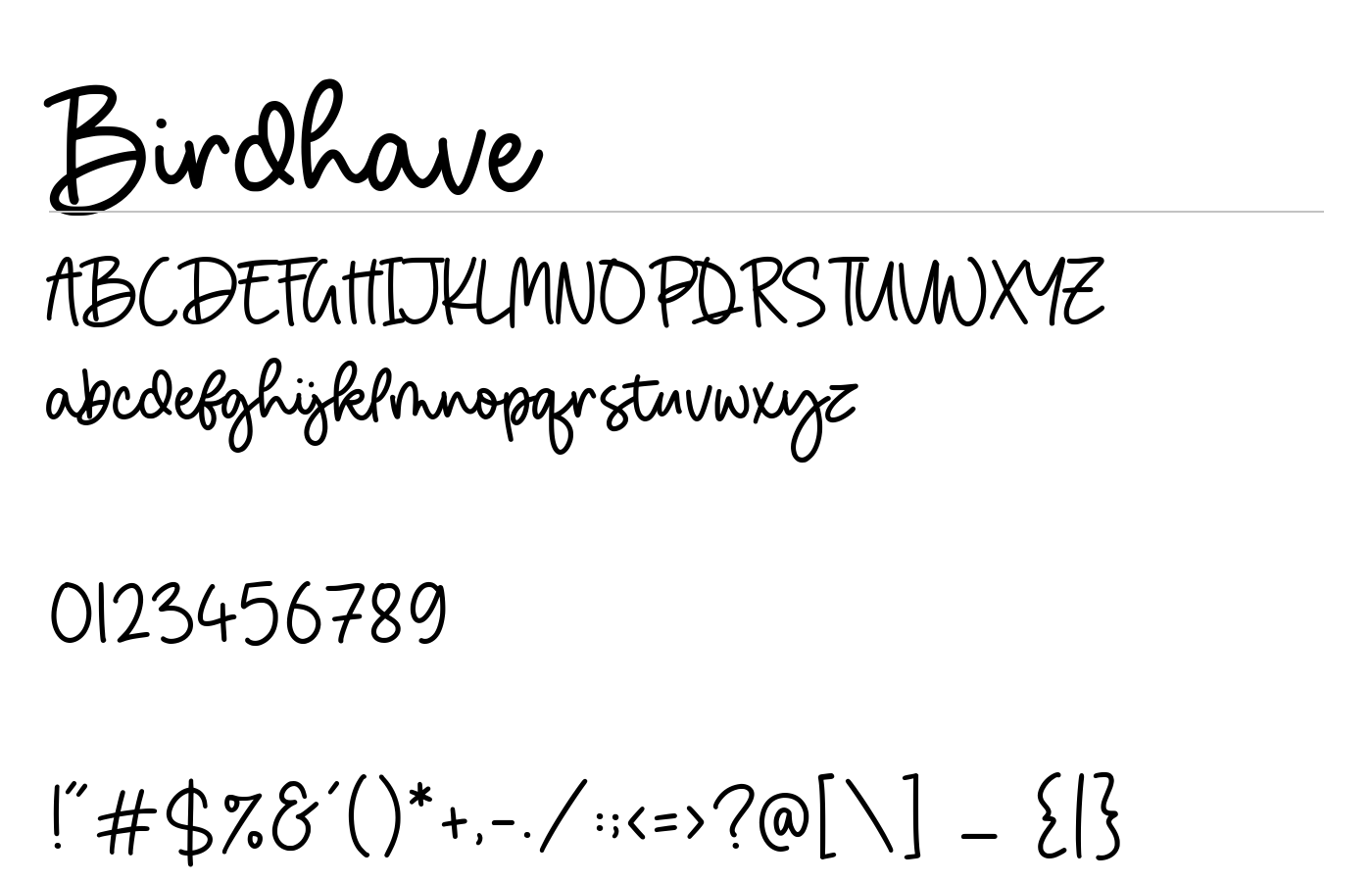
Birdhave is a playful and casual handwritten font featuring smooth, rounded strokes and an informal, friendly style. Its light weight and airy letter spacing make it ideal for designs that want to convey warmth and approachability, perfect for creative branding, invitations, or children's products. This font works well in projects that require a personal, handwritten touch without sacrificing readability.
Birdhave Font
About Birdhave Font
| Font family | Birdhave Font |
| Designer | Letterative Studio |